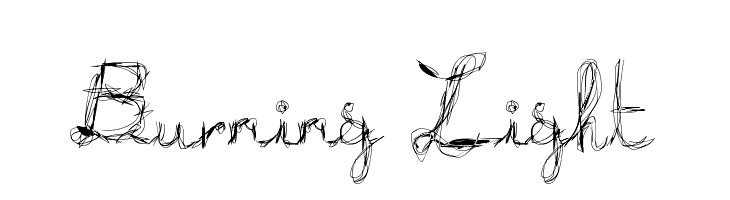
( Fonts by http://perso.calixo.net/~uzim/ )
A decorative, hand-drawn font with swirling, chaotic lines and varying stroke thickness.
( Fonts by http://perso.calixo.net/~uzim/ )
A chaotic, flame-like decorative font with swirling, jagged lines.